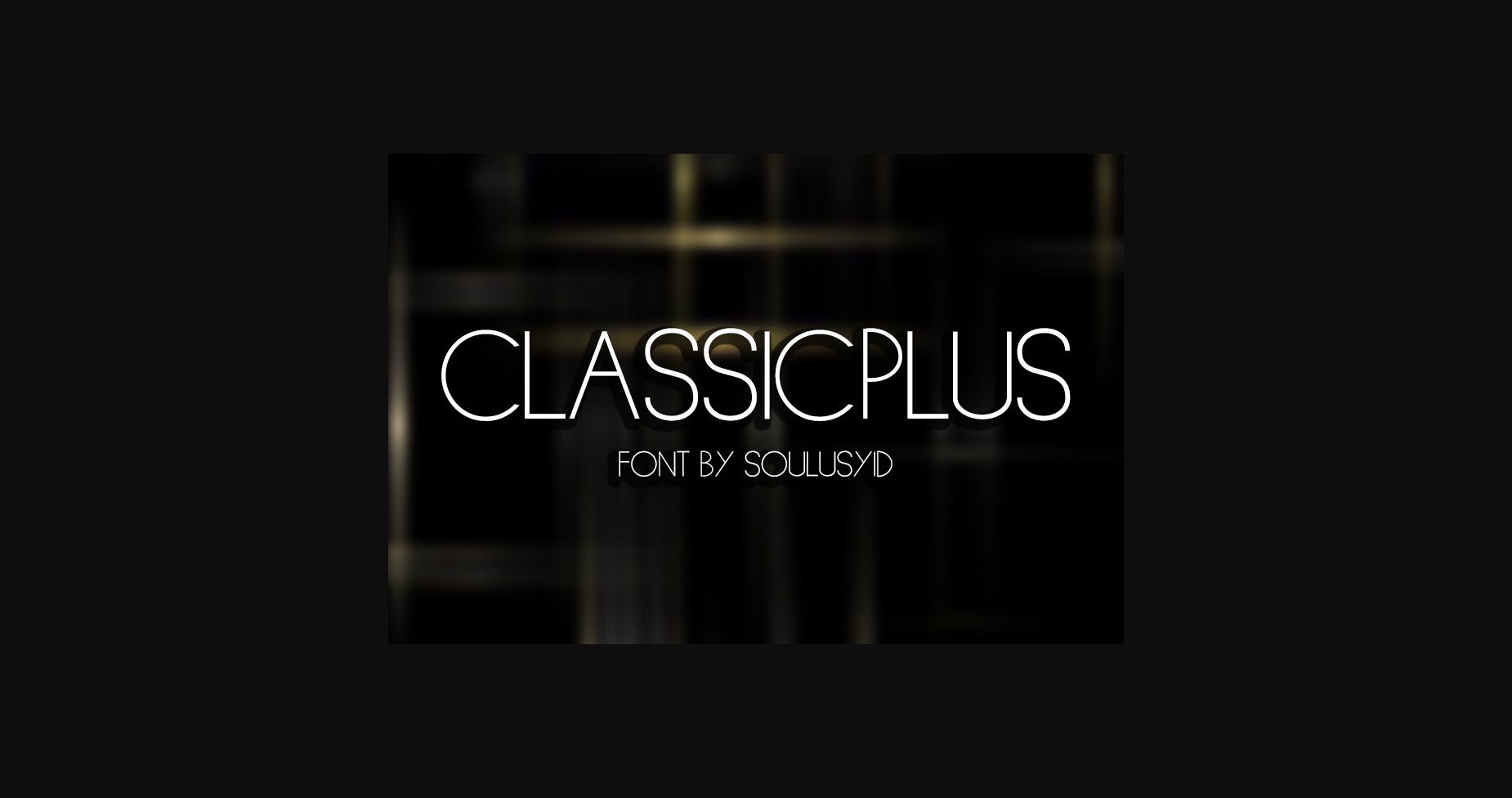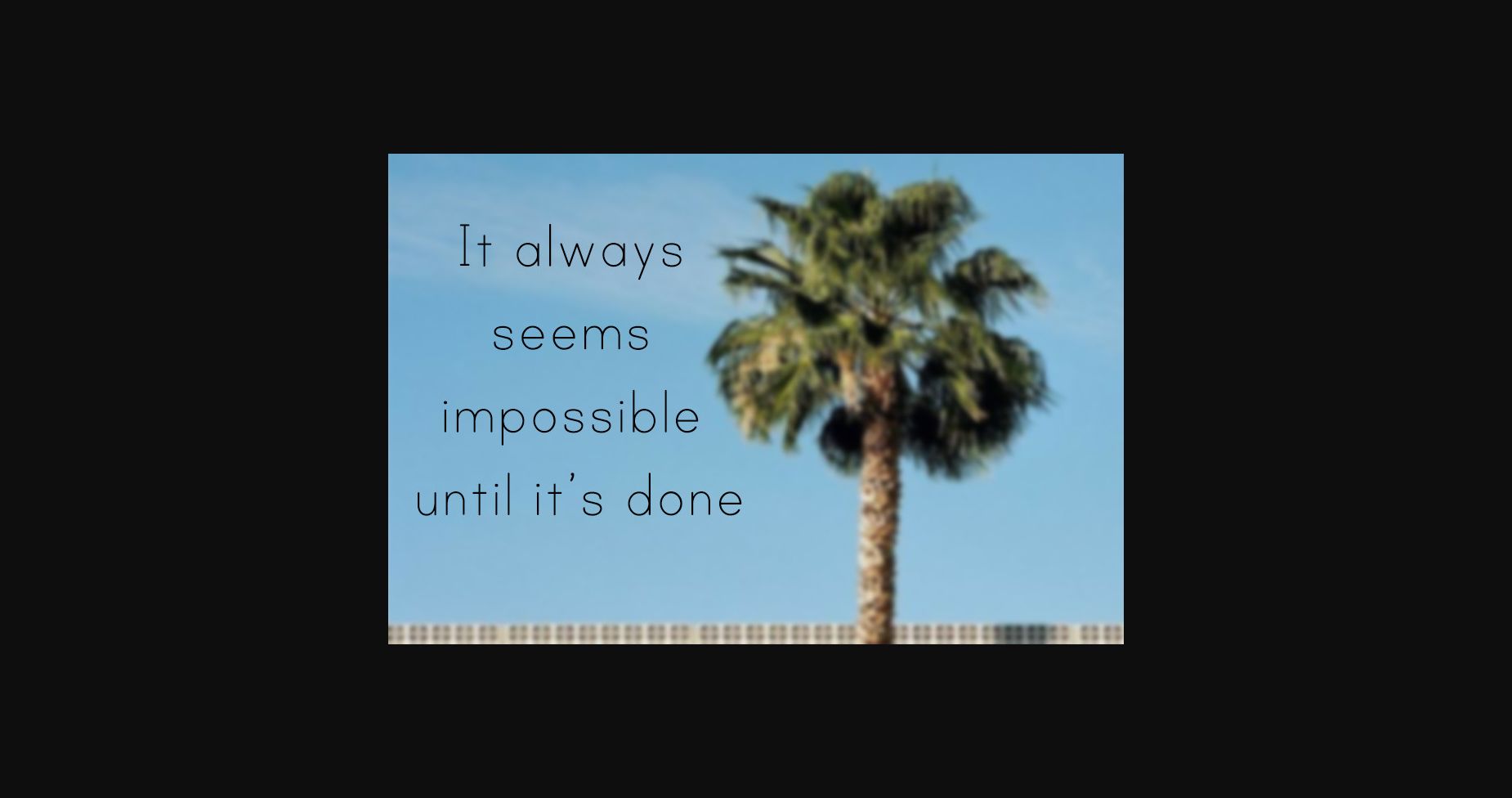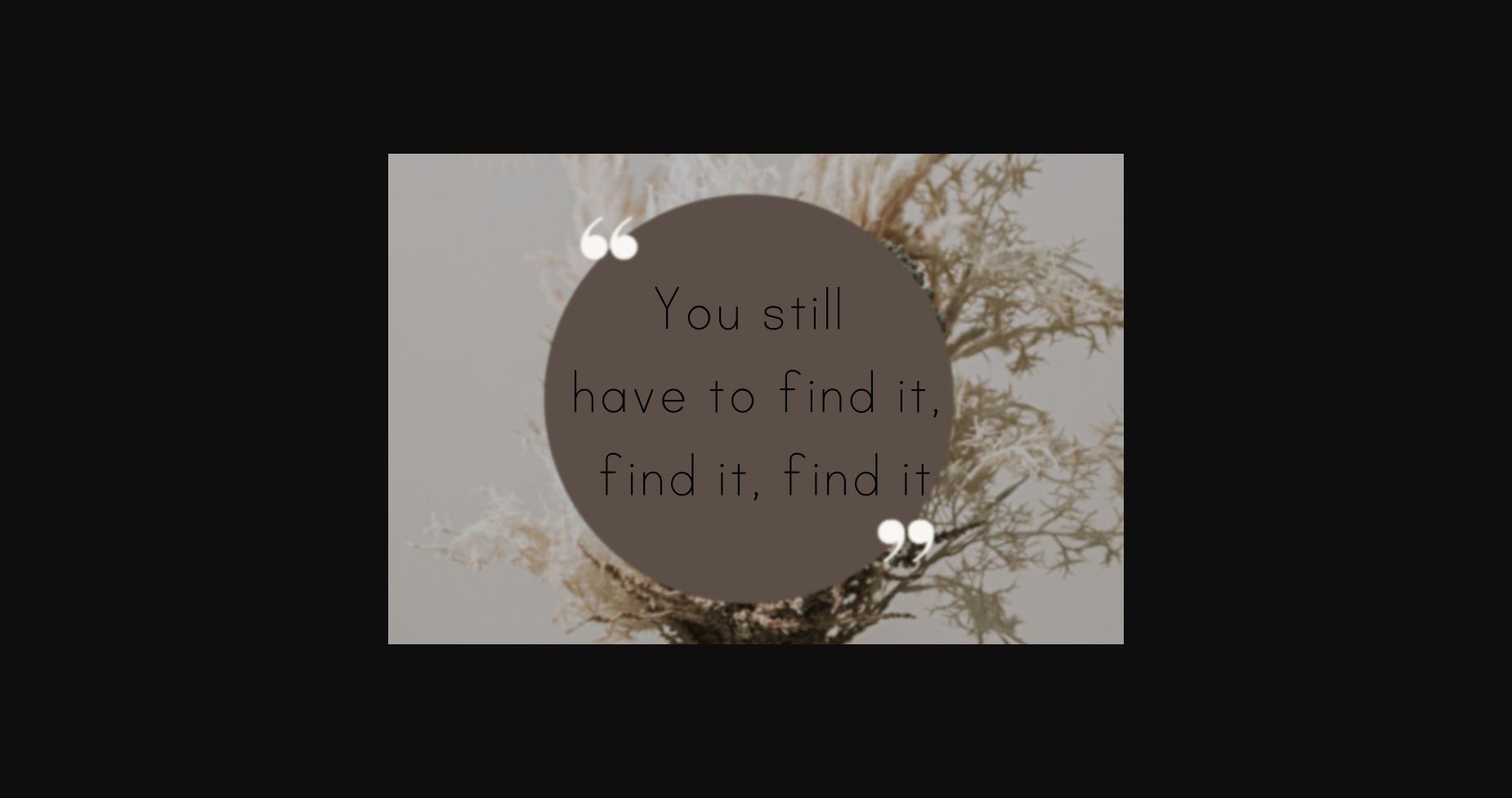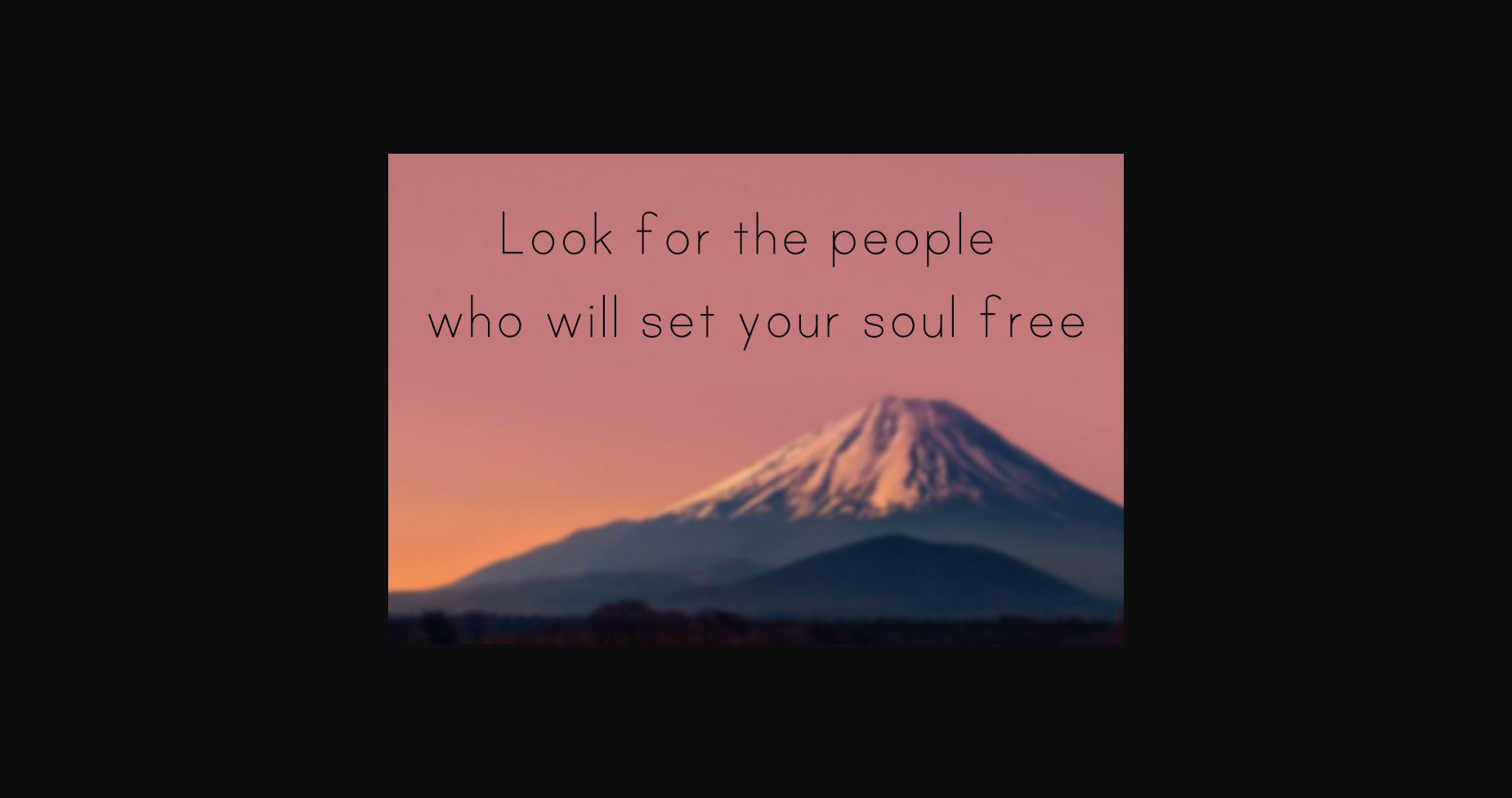
HomeSans Serif FontsClassicplus Font Sans Serif Fonts Classicplus Font FacebookXPinterestWhatsApp 1 of 6 ... Classicplus Font Poster 2... Classicplus Font Poster 3... Classicplus Font Poster 4... Classicplus Font Poster 5... Classicplus Font Poster 6... About Classicplus Font Classicplus is an attractive and modern sans-serif font. This modern and catchy vibe can easily apply to your favorite designs such as book covers, magazines, social media posts, invitations, and so much more! DOWNLOAD NOW People also explored Heartna Font Voluptuous Font Ampere Font Yellow Duck Font Coffee Break Font Kilsonburg Triberry Font Parent Font Kindness is Golden Font 318 0 TagsClassicplus Font Previous articleBeillia FontNext articleSporkey Font LEAVE A REPLY Cancel reply Comment: Please enter your comment! Name:* Please enter your name here Email:* You have entered an incorrect email address! Please enter your email address here Website: Save my name, email, and website in this browser for the next time I comment. Personal Use Free Brittish State Personal Use Free Read more about this font Dream Orphans Personal Use Free Read more about this font Arc Personal Use Free Read more about this font Open Heart Personal Use Free Read more about this font BLOG 5 Fonts That Will Dominate Design Trends in 2026 5 Fonts for 2026 That Will Dominate Design Trends Typography plays a critical role in visual communication, and as we look ahead to 2026, it’s... Where to Buy American Fonts Online in 2024 To increase your work productivity, choose the most readable fonts. The 10 Best Handwriting Fonts to Add Personality to Your Designs